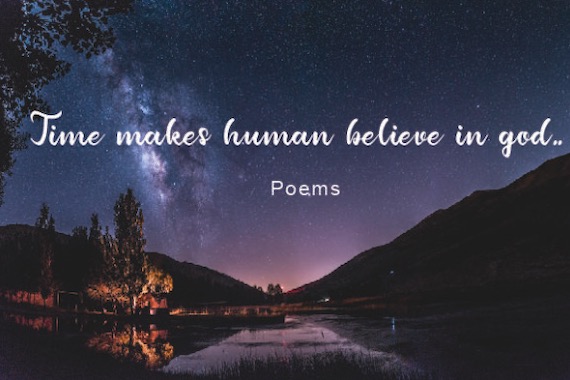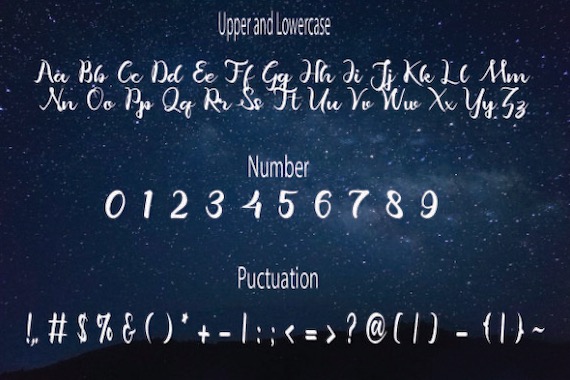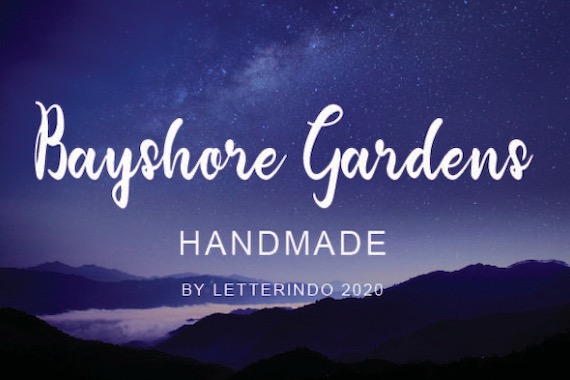
Introducing Bayshore Gardens Font. It’s an elegant & classy magical handwritten font that was carefully made and shared by johndesign540. It’s a great & cool combination of authentic calligraphy and a timeless romance.
Bayshore Gardens Script Font